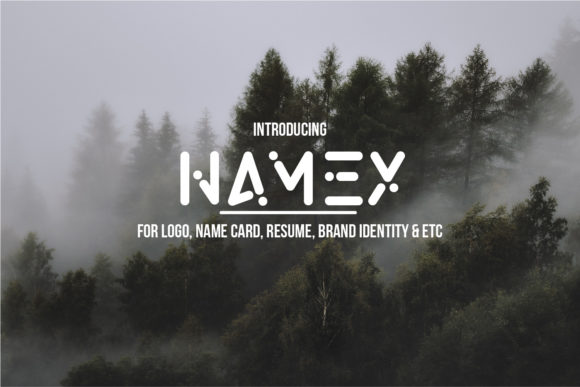
Behold Namex Font: A Sans Serif Brimming with Joy and Exuberance!
In a world saturated with monotonous fonts, Namex emerges as a breath of fresh air, a sans serif font that radiates a carefree spirit and infectious charm. Crafted with meticulous attention to detail by the ingenious mubarak, Namex is a typographic masterpiece that will add a touch of whimsy and delight to your creative projects.
Let your words dance with Namex, a font that exudes happiness and makes reading a joyous experience. Whether you're crafting website content, designing eye-catching logos, or creating captivating social media graphics, Namex is your perfect companion. Its playful nature will infuse your projects with an irresistible allure, leaving a lasting impression on your audience.
Immerse yourself in the boundless creativity of Namex. With its unique style and authentic vibe, Namex invites you to explore a world where imagination knows no bounds. From playful invitations to quirky posters, Namex effortlessly adapts to your creative vision, becoming an integral part of your artistic expression.
Embrace the spontaneity of Namex and let your words take center stage. This remarkable font will make your creations shine, captivating your audience with its infectious energy. Don't settle for ordinary fonts; choose Namex and unlock the door to extraordinary designs.